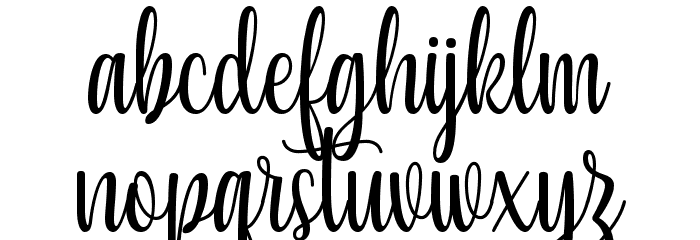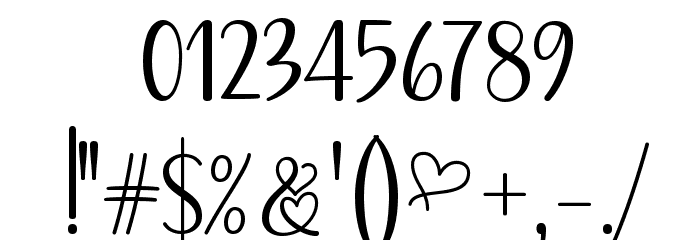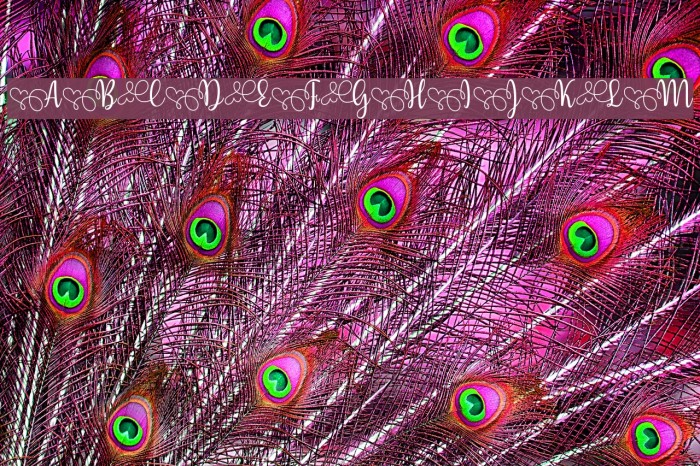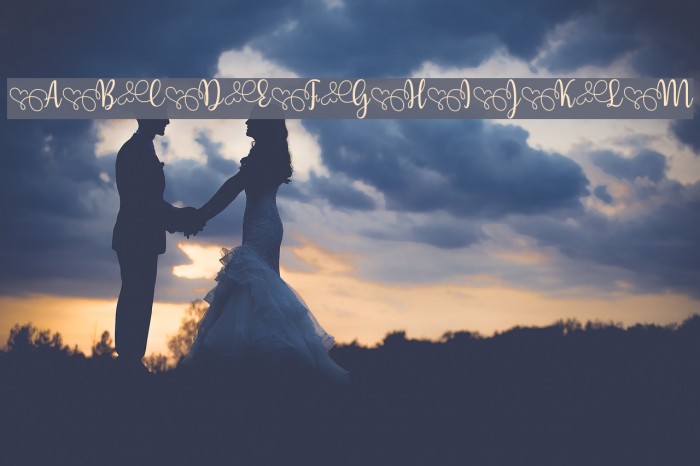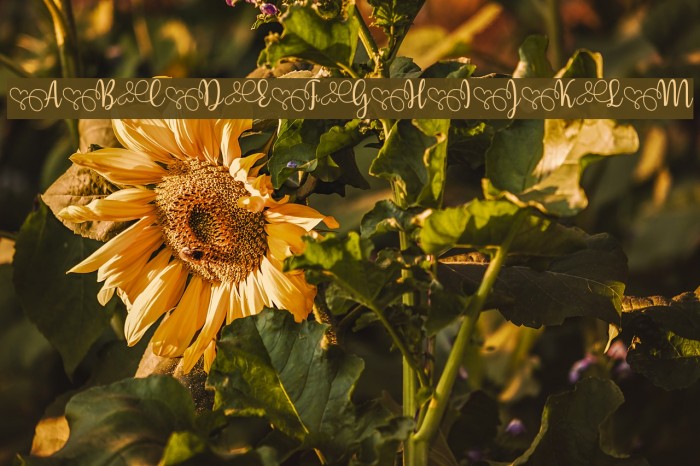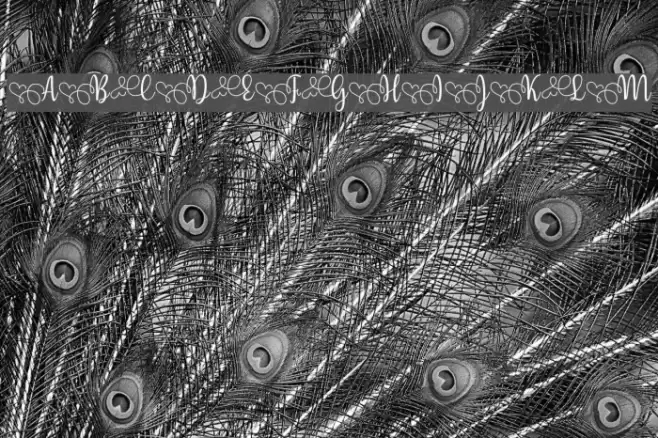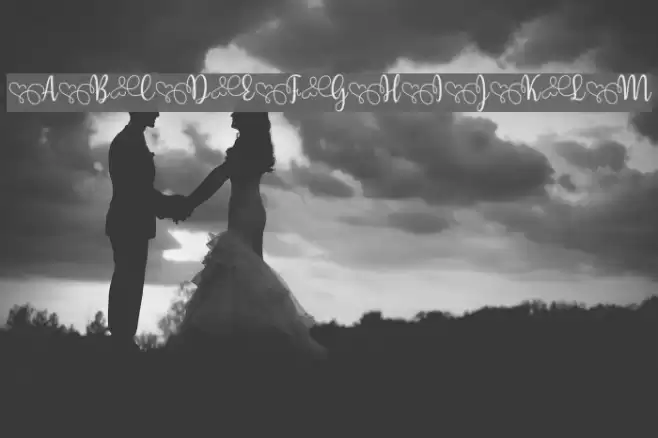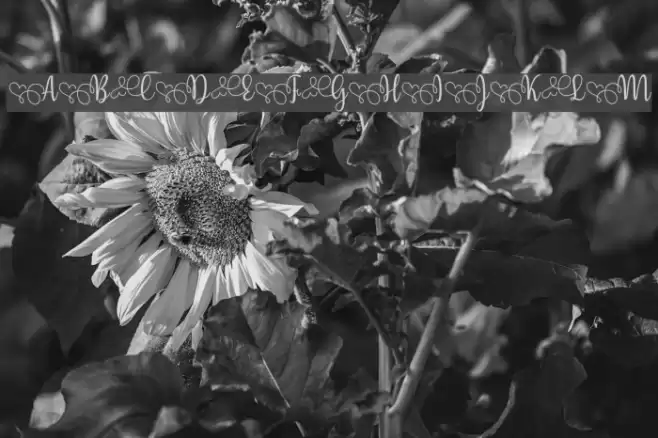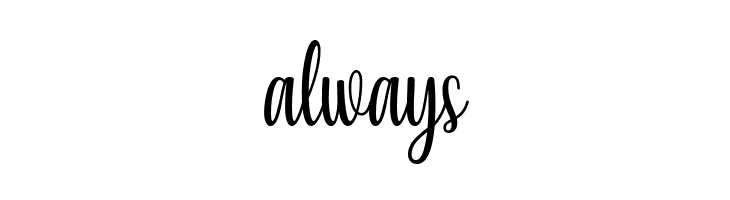
Yessy Font
This font features a playful and elegant script style with a handwritten touch. The uppercase letters are adorned with decorative swirls, adding a whimsical flair. The lowercase letters maintain a smooth, flowing appearance, enhancing readability while retaining a personal, artistic feel. Numbers and special characters are consistent with the overall style, ensuring versatility across different design needs. The font's unique charm makes it suitable for creative projects that require a touch of elegance and personality.
A playful and elegant script font with decorative swirls and a handwritten touch.
- Proposed Projects: Ideal for wedding invitations, greeting cards, branding projects, and social media graphics.
- Use Case: Logos, Invitations, Decorative text